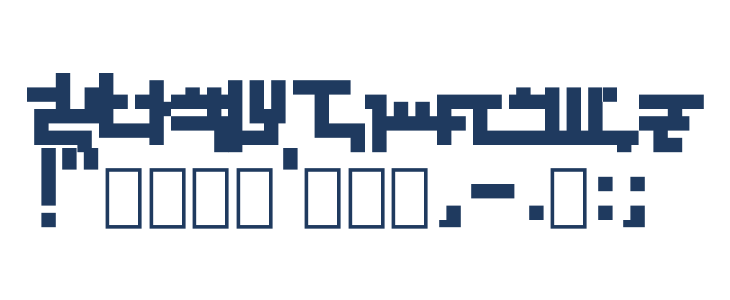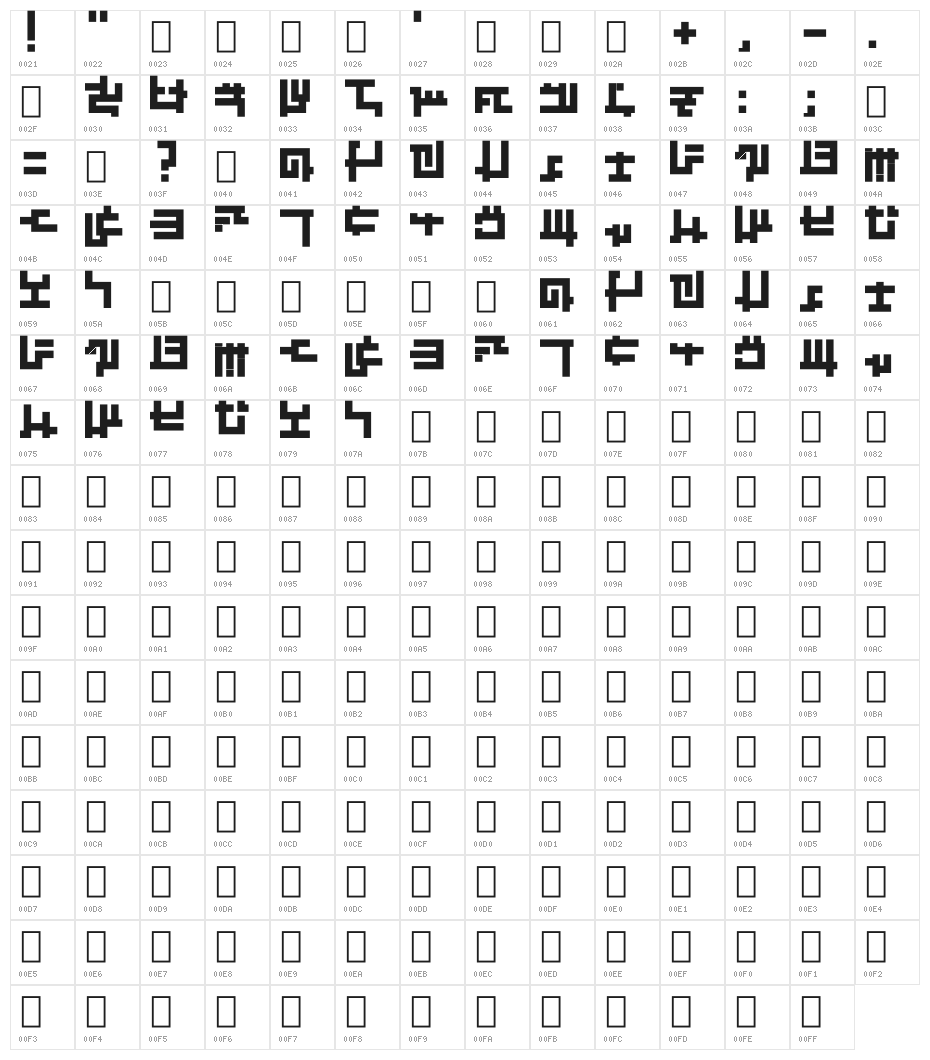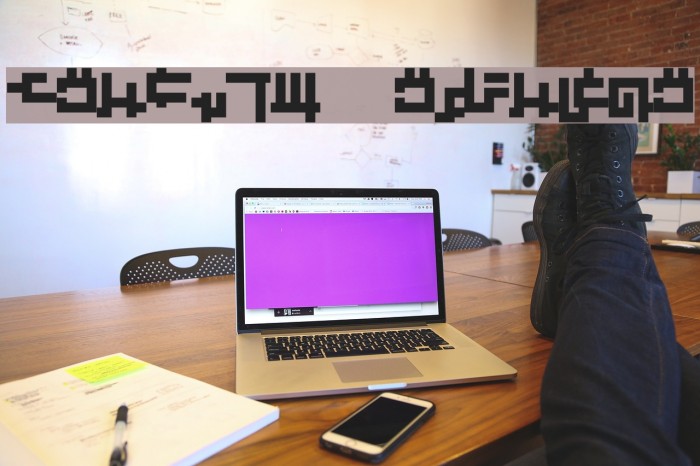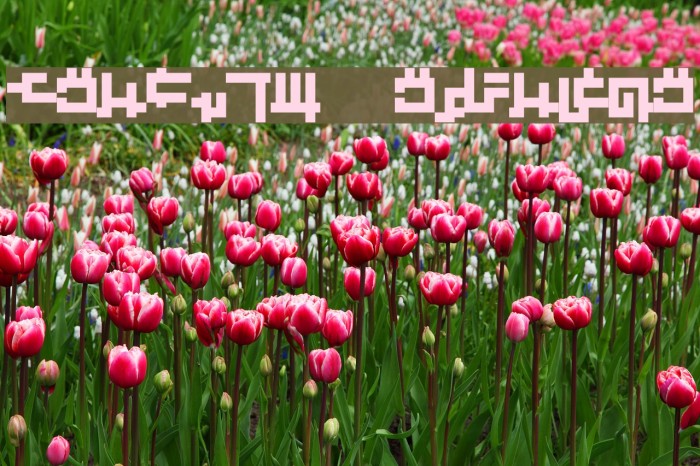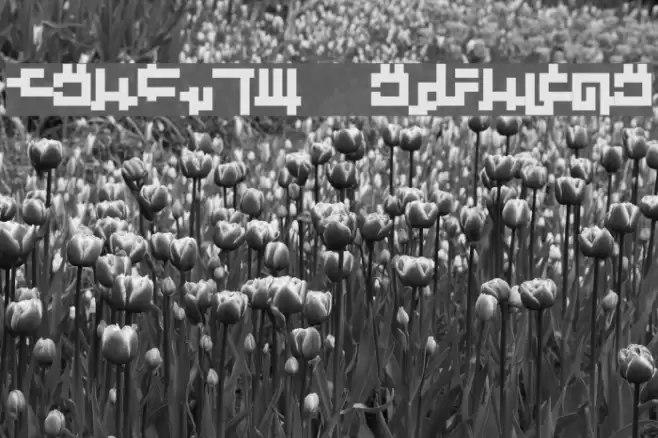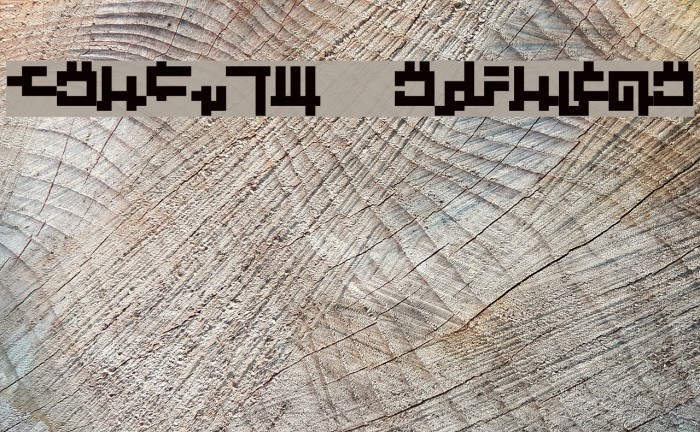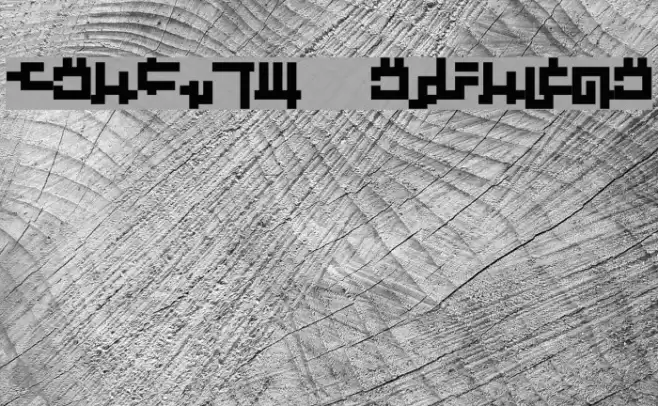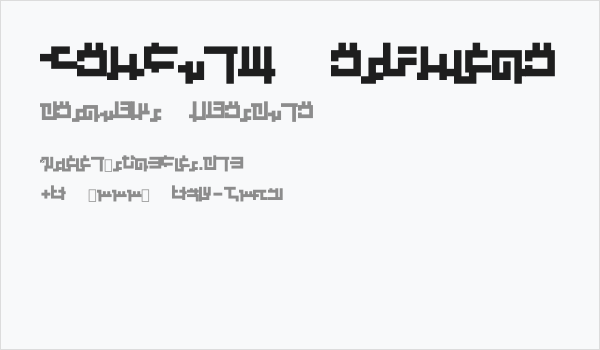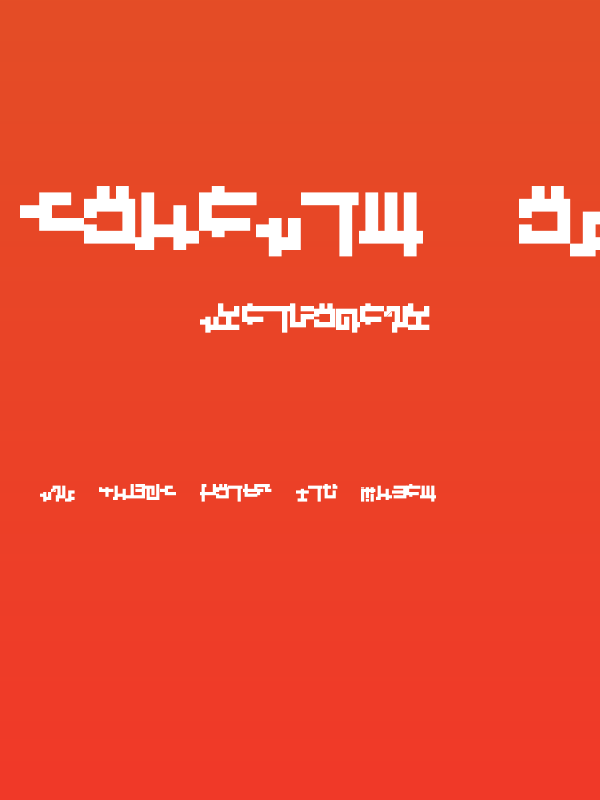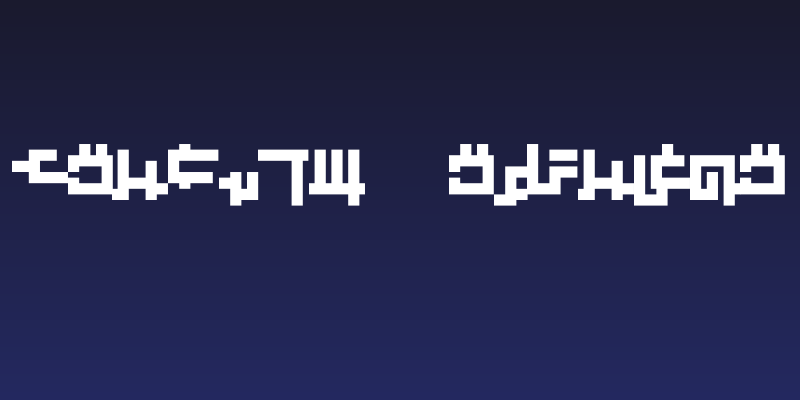
Kruptos Regular Font
Kruptos Regular Description
This font exhibits a highly stylized and abstract design, characterized by its blocky and pixelated appearance. Each character is composed of sharp, angular lines that create a futuristic and cryptic aesthetic. The uniformity in stroke width across all characters contributes to a cohesive look, while the geometric shapes give it a digital, almost alien-like feel. The font's unique style makes it stand out, offering a distinct visual identity that is both modern and unconventional. Its design is reminiscent of early computer graphics or video game text, making it ideal for projects that aim to evoke a sense of nostalgia or technological advancement.
Use CaseLogos, Headlines, Digital Art
Proposed ProjectsIdeal for video game design, tech-themed posters, digital art, and sci-fi branding.